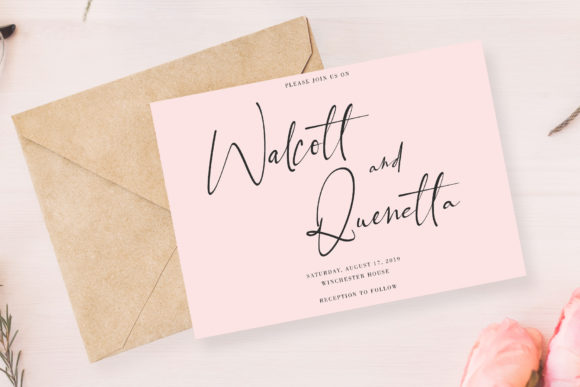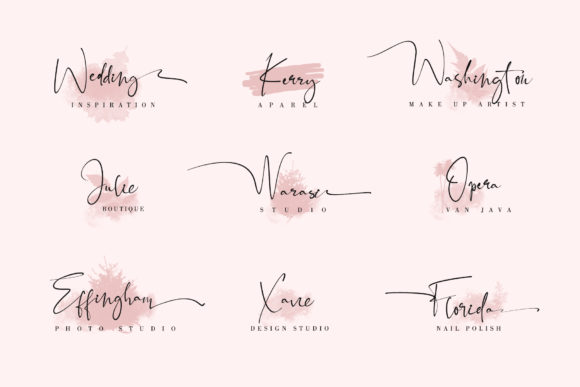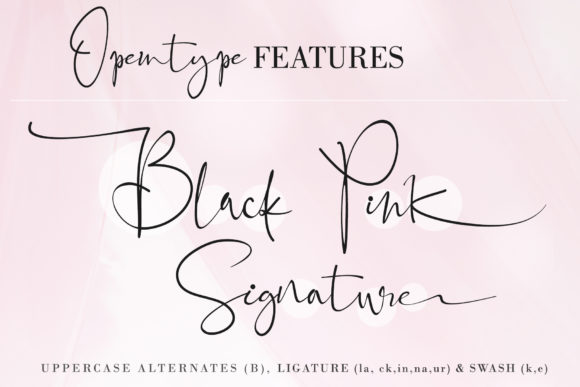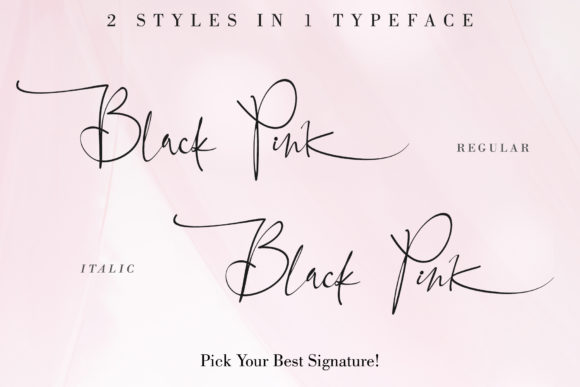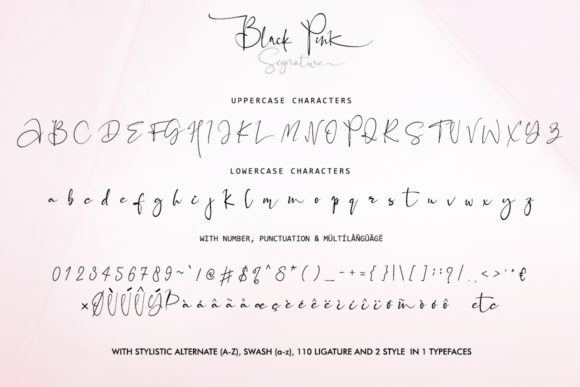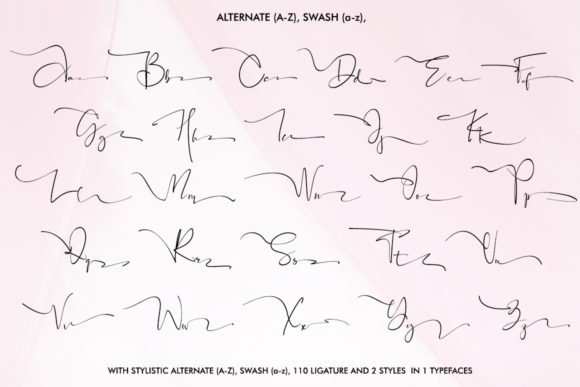
Introducing Black Pink Family Font: Elevate Your Designs with Luxurious Calligraphy
Are you a designer or crafter looking for a font that adds a touch of luxury and elegance to your work? Look no further than the Black Pink Family Font. This beautiful calligraphy family is perfect for creating stunning logos, packaging, wedding stationery, websites, and any other design that requires a handwritten feel.
What is Black Pink Family Font?
The Black Pink Family Font is a collection of four stylish calligraphy fonts that can be combined perfectly to create unique and visually appealing designs. Each font in the family is carefully crafted to provide a luxurious and sophisticated look, making it ideal for designers and crafters who want to add a touch of elegance to their work.
Key Features of Black Pink Family Font
- 4 Styles to Choose From: The Black Pink Family Font includes four different styles that can be mixed and matched to create multiple unique designs. Whether you’re looking for a bold and dramatic look or a more subtle and elegant feel, this font family has got you covered.
- Perfect for Luxurious Designs: The calligraphy style of the Black Pink Family Font is perfect for creating luxurious designs that require a high-end feel. From logos and packaging to wedding stationery and websites, this font family is sure to impress.
- Handwritten Feel: The Black Pink Family Font has a beautiful handwritten feel that adds a personal touch to any design. Whether you’re creating a logo, brochure, or website, this font family will give your work a unique and authentic look.
- Easily Customizable: The Black Pink Family Font is easy to customize, allowing you to adjust the font to suit your design needs. Whether you want to change the color, size, or style, this font family is flexible and easy to work with.
Use Cases for Black Pink Family Font
The Black Pink Family Font is versatile and can be used in a variety of design projects, including:
- Logos: Create a stunning logo for your business or brand with the Black Pink Family Font. The luxurious and elegant feel of this font family is perfect for high-end brands and businesses.
- Packaging: Add a touch of luxury to your product packaging with the Black Pink Family Font. Whether you’re designing labels, tags, or packaging materials, this font family is sure to impress.
- Wedding Stationery: Create beautiful wedding stationery, including invitations, programs, and place cards, with the Black Pink Family Font. The elegant and sophisticated feel of this font family is perfect for wedding designs.
- Websites: Add a touch of luxury to your website with the Black Pink Family Font. Whether you’re designing a homepage, about page, or blog, this font family is sure to elevate your website design.
Tips for Using Black Pink Family Font
Here are some tips for using the Black Pink Family Font in your designs:
- Experiment with Different Styles: Don’t be afraid to experiment with different styles and combinations of the Black Pink Family Font. The four styles included in this font family can be mixed and matched to create unique and visually appealing designs.
- Use it for Headings and Titles: The Black Pink Family Font is perfect for headings and titles. Use it to add a touch of luxury and elegance to your design.
- Pair it with Other Fonts: The Black Pink Family Font can be paired with other fonts to create a unique and visually appealing design. Experiment with different font combinations to find the perfect look for your design.
The Black Pink Family Font is a beautiful calligraphy family that is perfect for designers and crafters looking to add a touch of luxury and elegance to their work. With four styles to choose from, this font family is versatile and can be used in a variety of design projects, from logos and packaging to wedding stationery and websites. Whether you’re looking for a bold and dramatic look or a more subtle and elegant feel, the Black Pink Family Font is sure to impress.